8 Of The Coolest Fonts
Fonts are a huge part of any design project and one of the most important decisions you’ll make when choosing how you’ll design something. If you see the graphic design with a bad font, regardless of how good the design itself may be, your whole perception of the design can be ruined. However, the same goes for vice versa. When you see a design with a really badass font, sometimes, even regardless of the design itself, you can find it really cool.
The good news is, new fonts are coming out all the time and they’re all trendy and awesome. There’s no need to stick with a basic font when you could choose a font for your design that instantly grabs attention and gives your design character. Details like fonts are critical when you’re designing, so having cool fonts to choose from is important.
Let’s take a look at what we think is, frankly, some of the coolest fonts of all time.
Helios
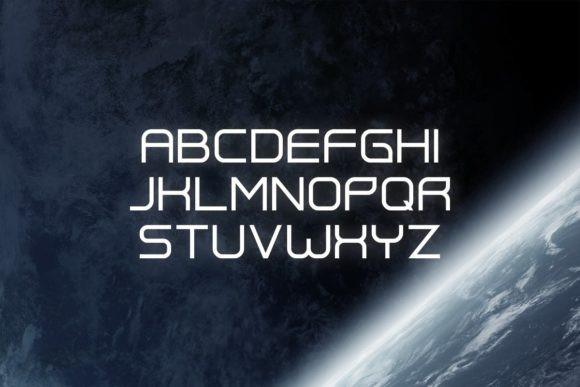
At a glance, you probably instantly think of space when you see this font on designs. If so, you’re not alone. Apparently, this font gives lots of people the impression of space, with its clean, sharp letters and curved corners. This font could easily find a happy home located on the front of a video game (think Halo) or an action movie. If you’re looking for a classic, trendy and sharp font, this one’s the choice.
Summer Loving
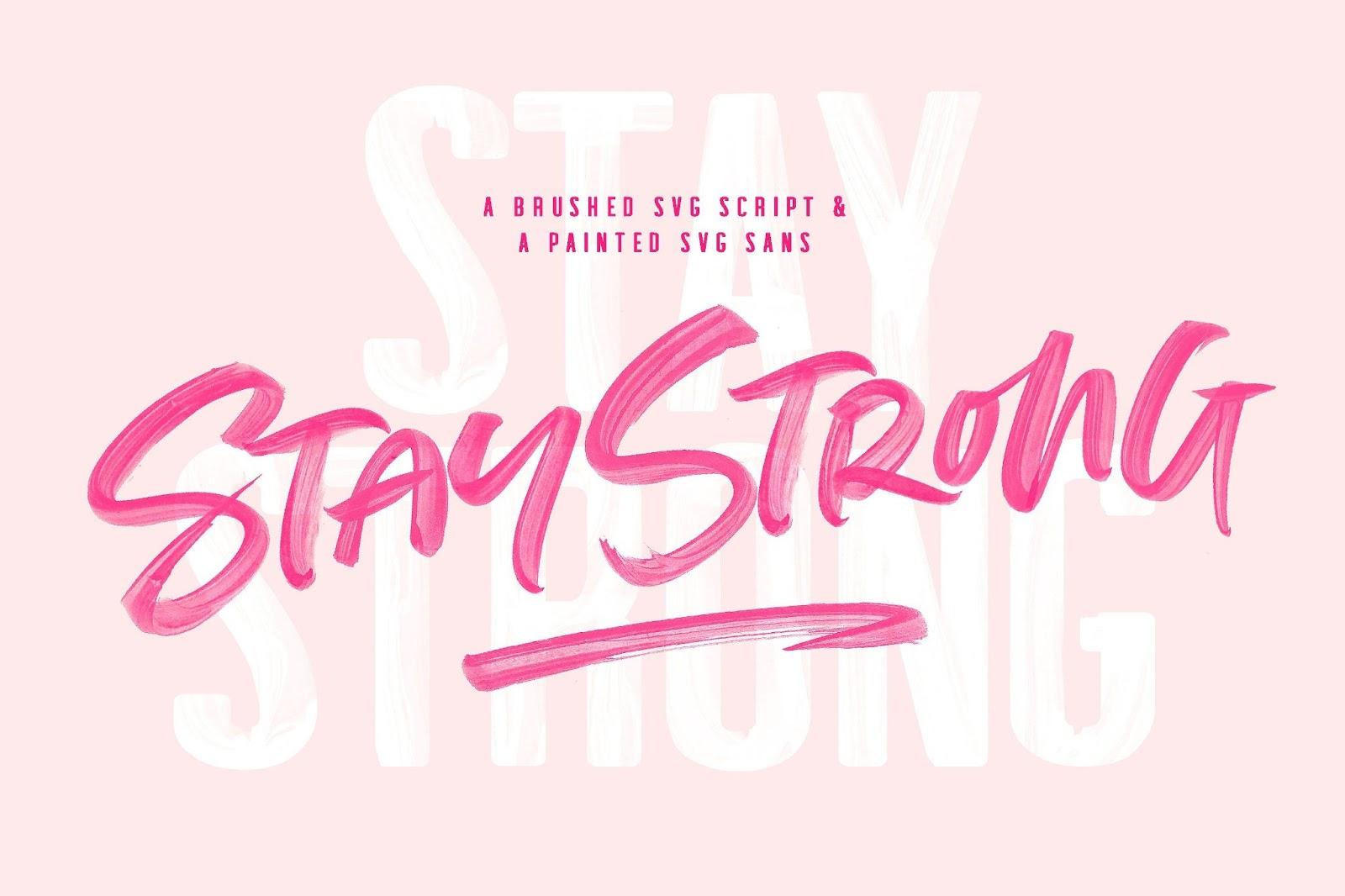
Who doesn’t love a good signature handwritten font? These fonts have always been popular, but within the past few years, we’ve seen graphic designers start using them more and more. Although this font will certainly look well in the summer months (as the name implies), it really can be used for any occasion! Paired with a good, bright, classy palette you’ll have a fun design.
Morganite
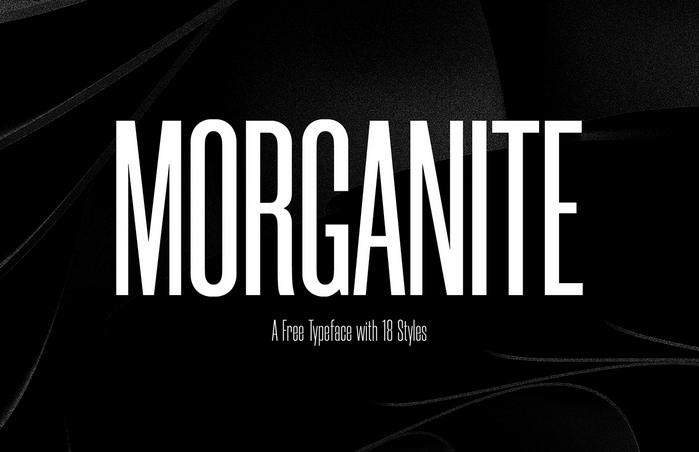
This tall, eye-catching font is the perfect choice for movie posters and banners. This font would be great used anywhere, but it would be especially cool used to on an action movie with a dark palette. Think classy magazine cover font. It’s bold, big, and classy; three things that we think this year definitely needs.
Wanderlust
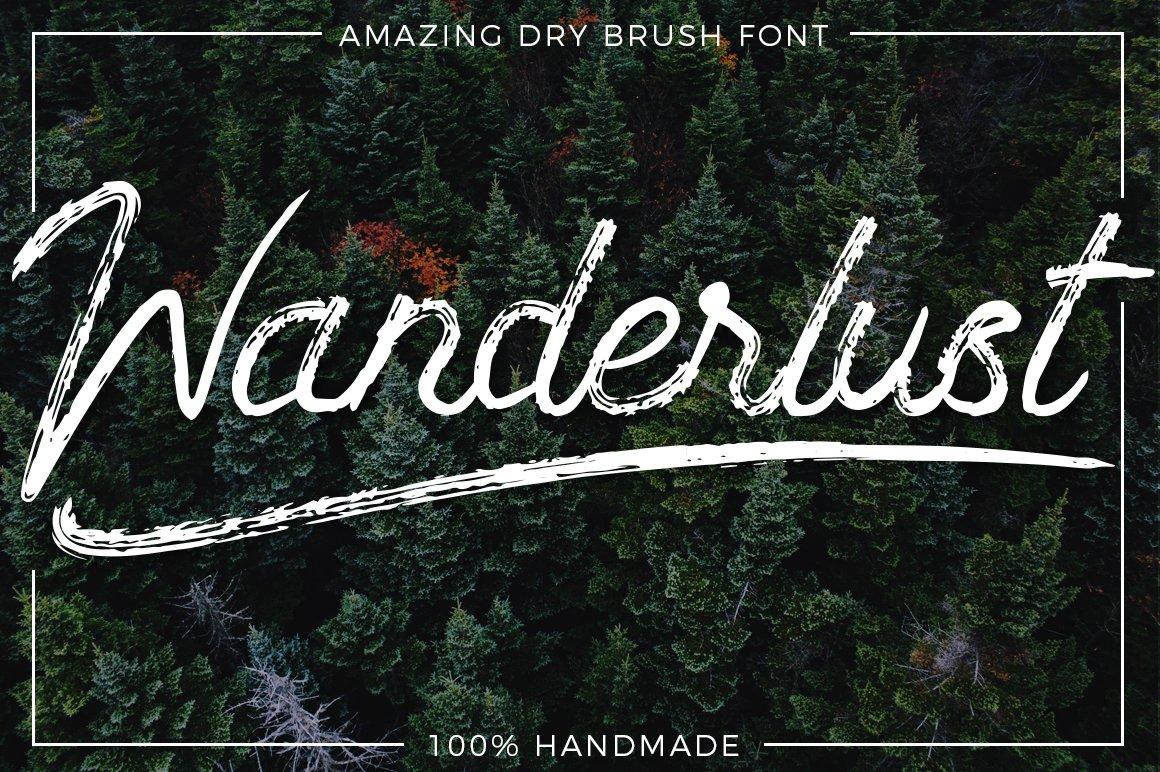
This font is unique and, at first, glance gives off outdoor vibes. This font has a distinct, classy look while also appearing rustic and signature. We think that this font would look especially good if used on outdoor branding for tent companies or coolers. This font has a classic, rustic look. This may be a difficult font for some graphic designers to work with, but a good graphic designer will be able to create something amazing with it.
Playfair
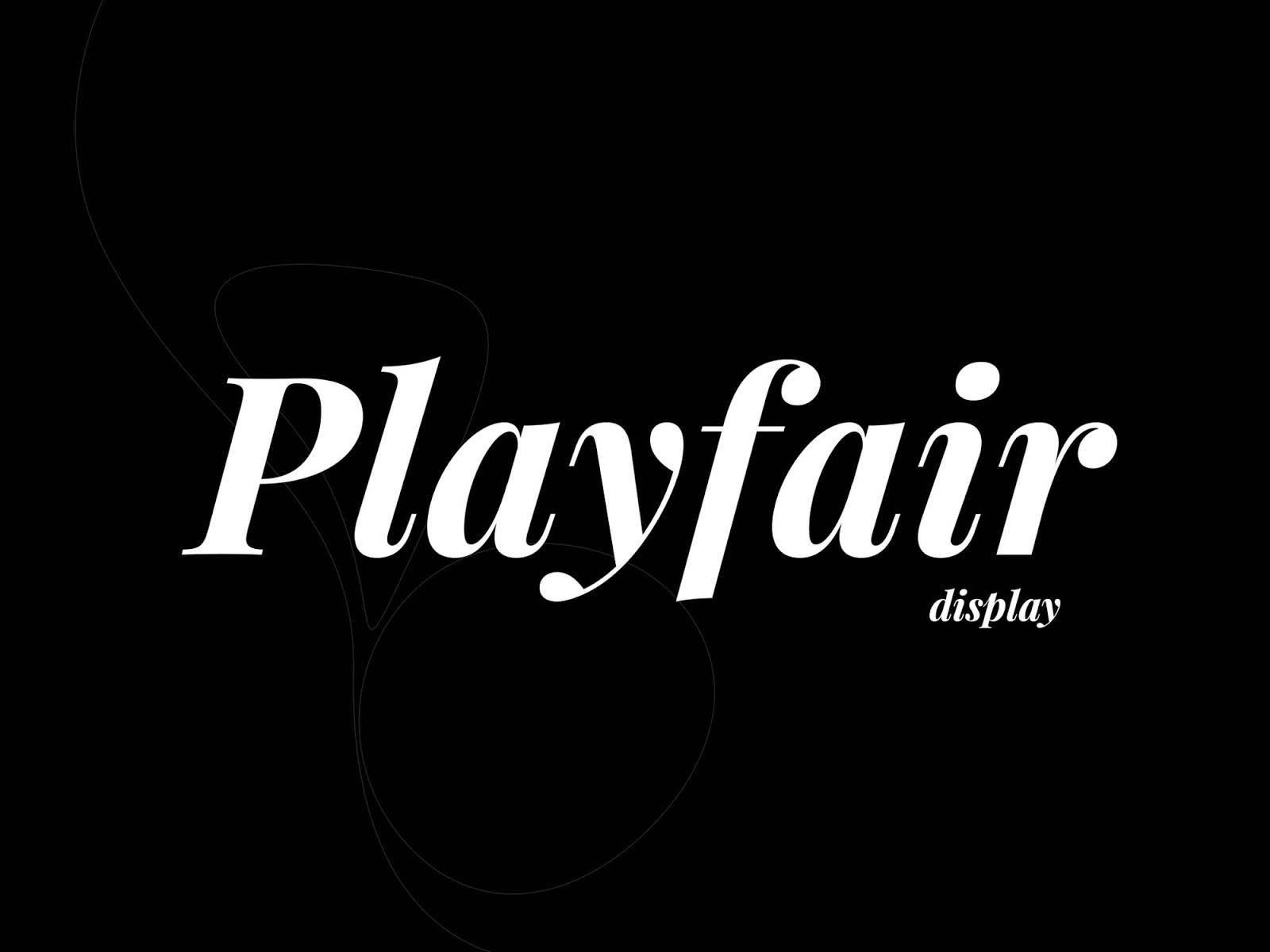
This font never goes out of style. This is a sleek, classic font that will make any design appear more stylish and classic. Think of the front of classic magazines like Vogue or classic branding. This gives branding a traditional look that consumers love and looks professional and sleek. The letters are well defined and will give any brand an instant lift.
Pacifico
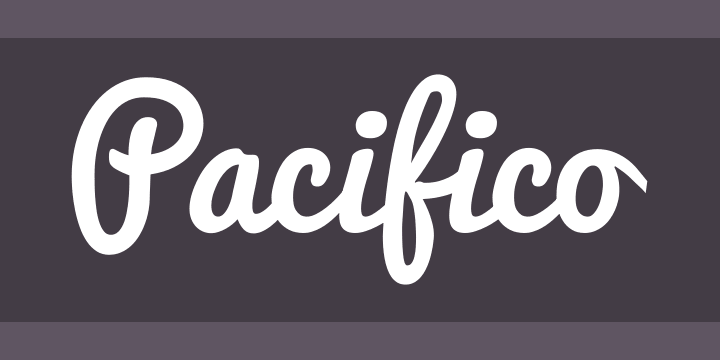
This font is one of the bolder ones listed here, with a handwritten font in a bold style. Although this font may not look the best when shown in a smaller size, if used for larger style branding it can look pretty cool. Think shown on the side of trucks or store windows. Although it may not come across clearly in smaller sizes, from far away, and in big sizing, this font looks fun and cool.
Nature Spirit
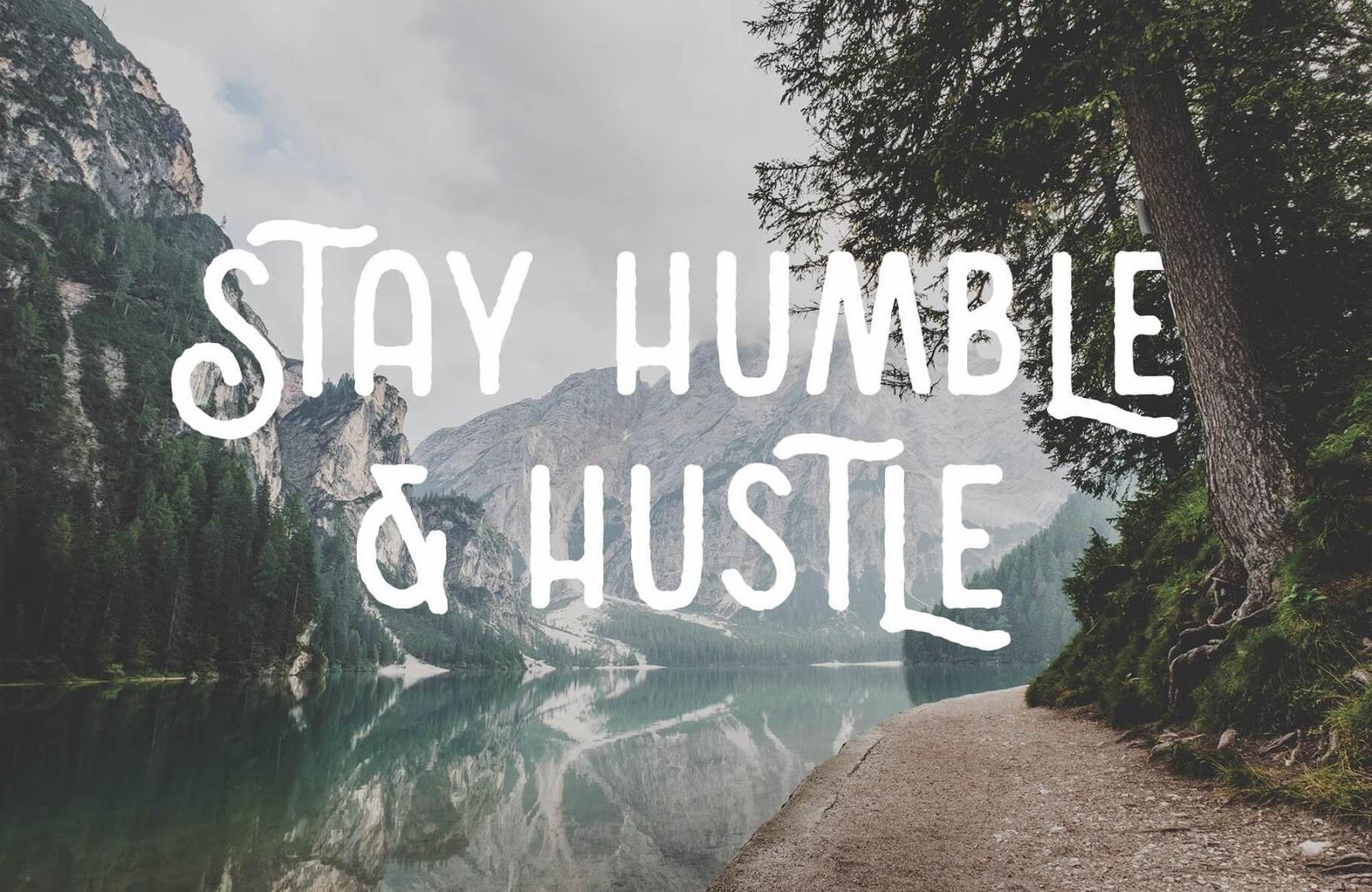
This font is exactly what the name implies; a little bit of nature in a font. When you look at this font, you’ll get vibes from the woods and the outdoors. Although the original font looks amazing on everything, you still have the option to customize it so that you can get the exact look that you want. You can choose between a rough and smooth version and customize other features.
Modak
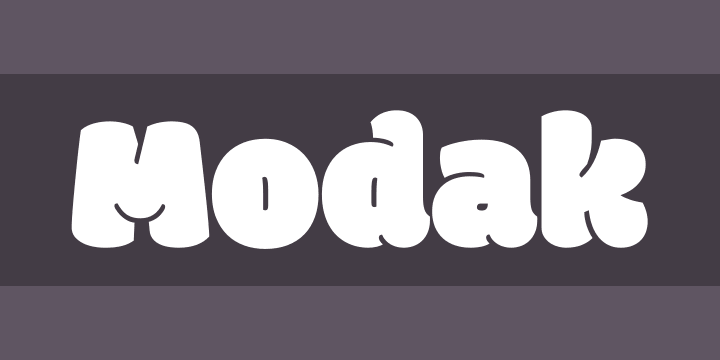
Most sans serif fonts are lighter weight, but we thought that we’d share a bolder one in this article. If you want to be different from the other websites that use lightweight sans serif fonts, then Modak is a perfect choice. This font has a bit of a fun look, with big, bubbly letters and rounded corners.